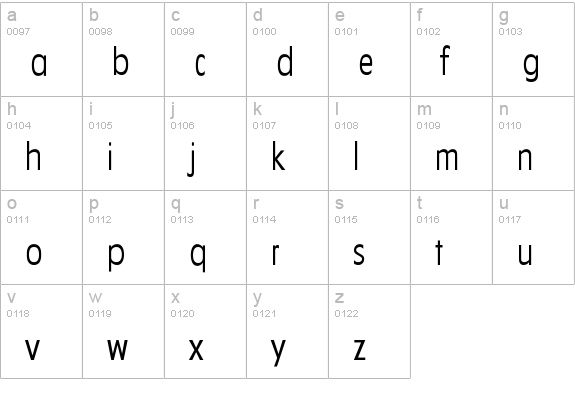
Florida-Light Font Details
Florida-Light is a refined, elegant variant in the Florida typeface family \xE2\x80\x94 well suited to elegant body text, refined sub-headings, and luxury branding.
Florida-Light font is a sleek and modern typeface that exudes sophistication and elegance. Its clean lines and subtle curves make it perfect for a wide range of design projects, from branding to digital content. The light weight of this font adds a touch of airiness and grace to any text it graces. And the best part? Florida-Light font is absolutely free to download at FontsMarket.com. This means you can easily enhance your designs with this beautiful typeface without breaking the bank. Don't miss out on the opportunity to elevate your projects with the timeless charm of Florida-Light font. Download it today and see the difference it can make!